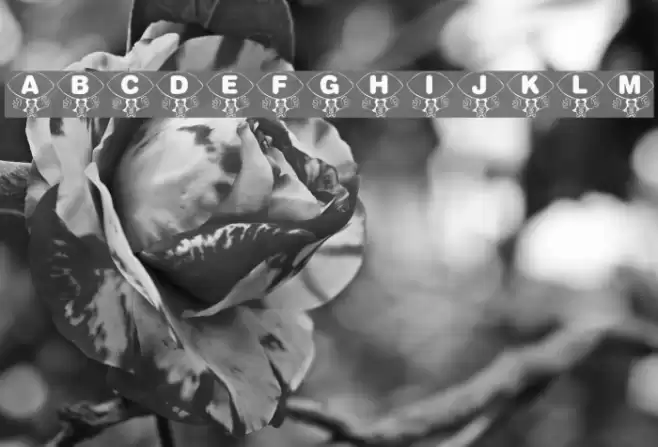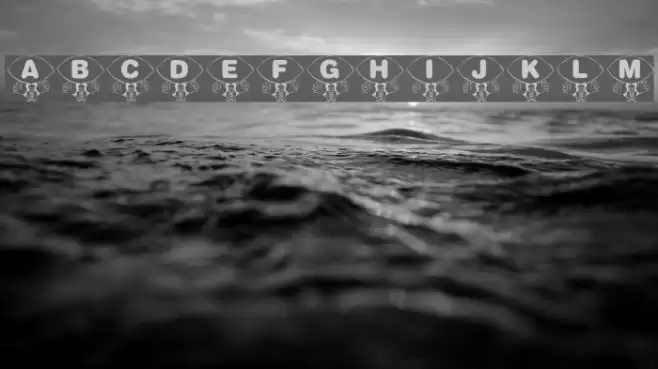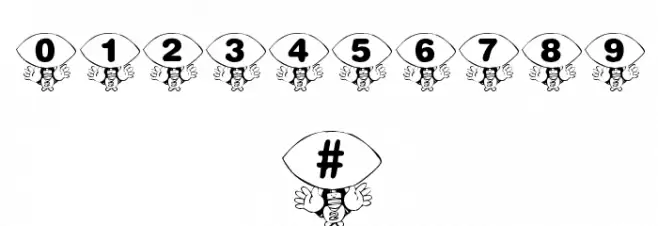
KR Foo'ball Font
KR Foo'ball Description
This playful and whimsical font features characters enclosed within football shapes, each supported by a pair of cartoonish hands. The bold, uppercase letters and numbers are designed to stand out, making them ideal for projects that require a fun and sporty theme. The unique design of each character adds a sense of movement and energy, perfect for engaging and dynamic visual content. The font's distinct style makes it suitable for children's projects, sports-related materials, or any creative endeavor that seeks to capture attention with a touch of humor and lightheartedness.
A playful font with characters inside football shapes, supported by cartoon hands from Uncategorized fonts.
- Proposed Projects: Ideal for sports-themed designs, children's books, playful posters, and event flyers.
- Overall Style: Playful, Sporty